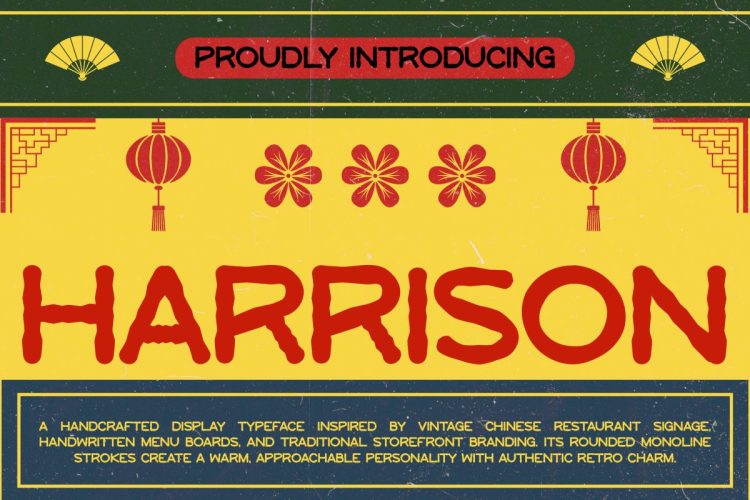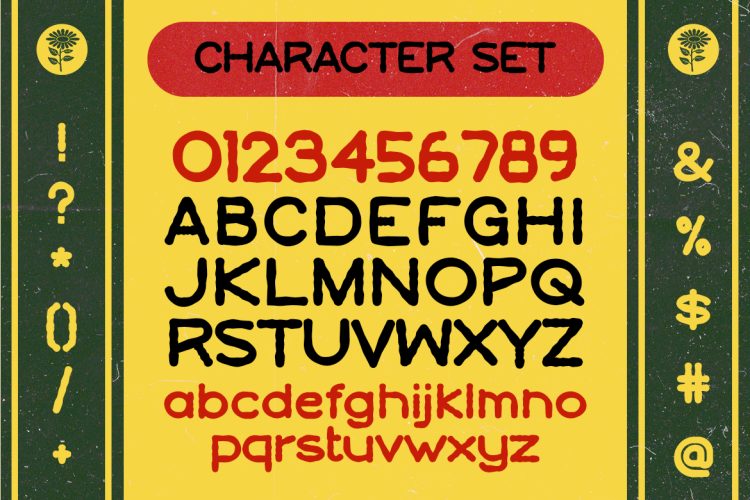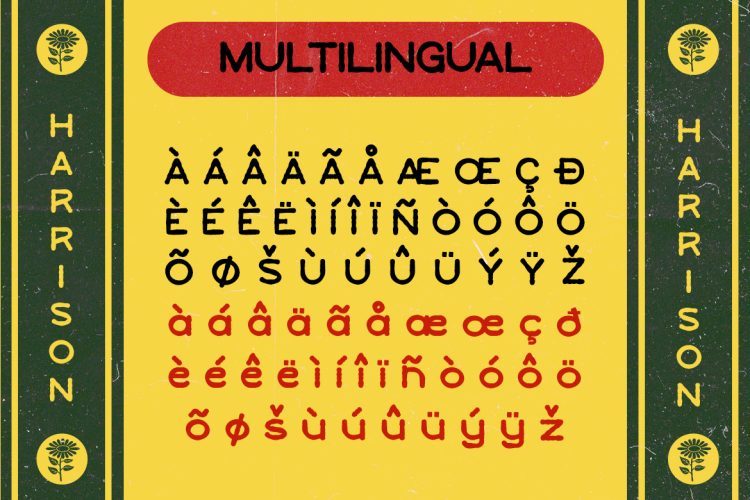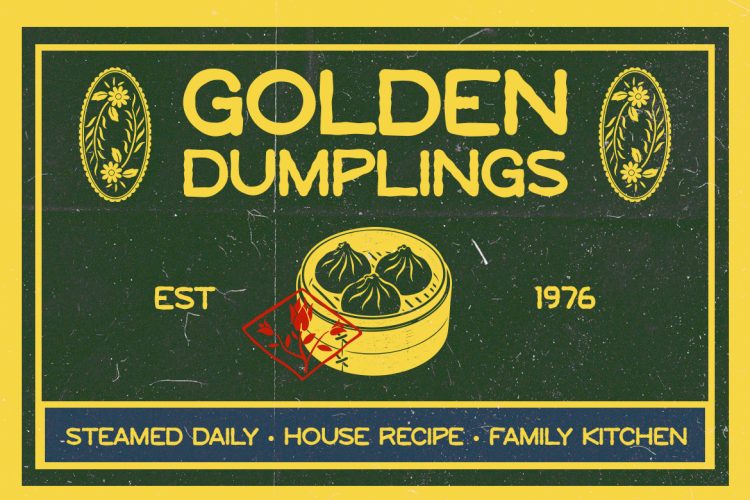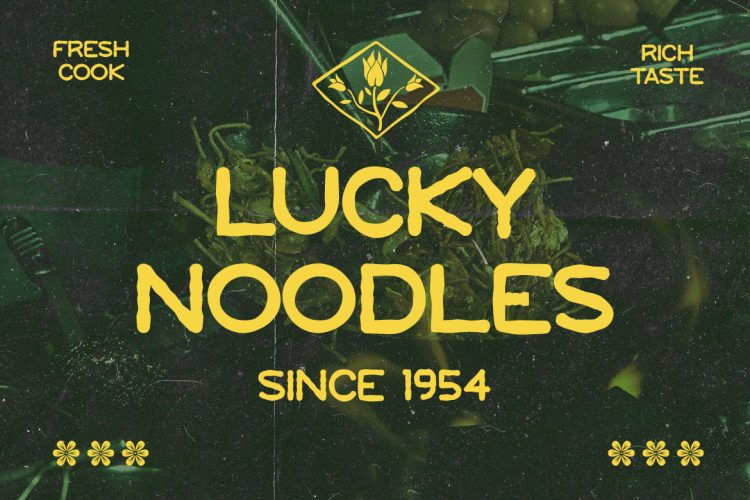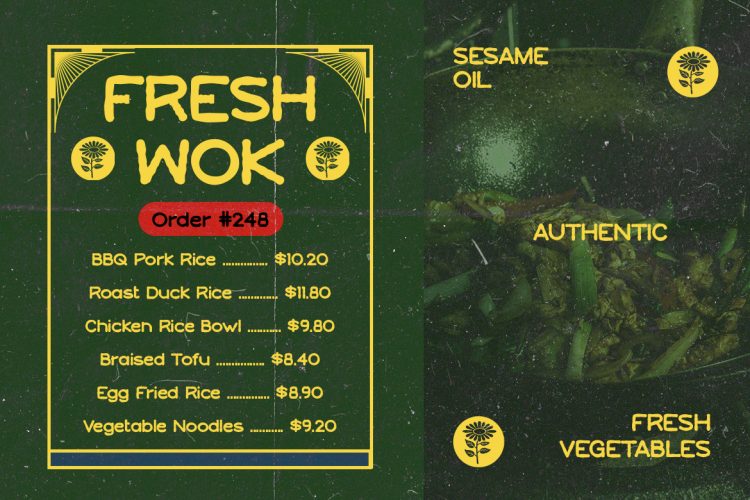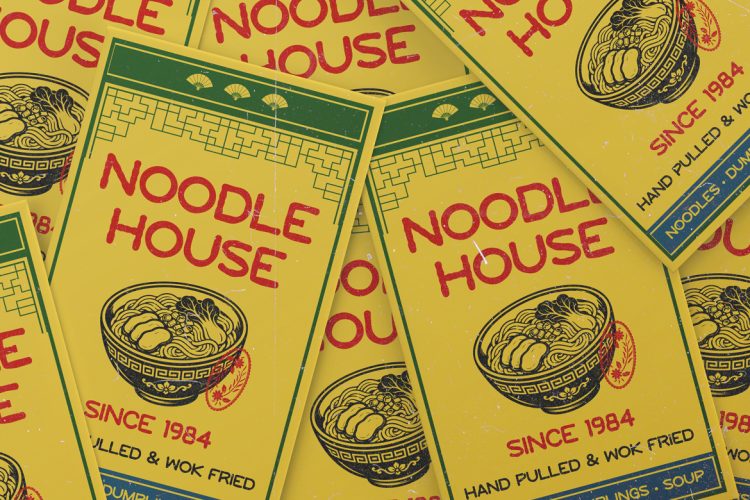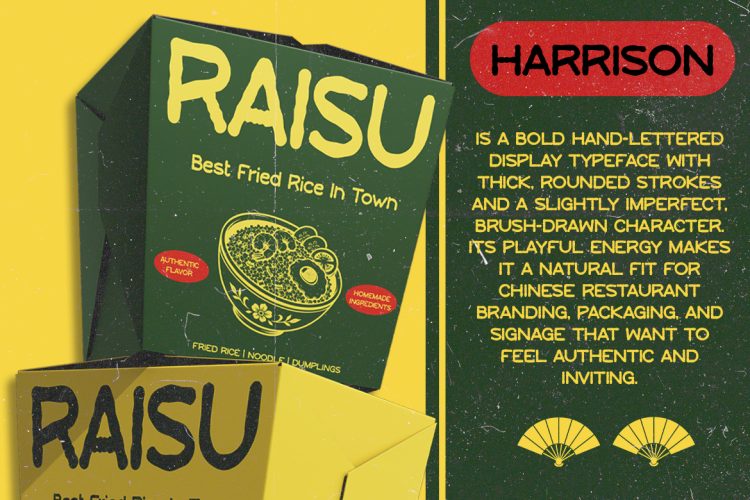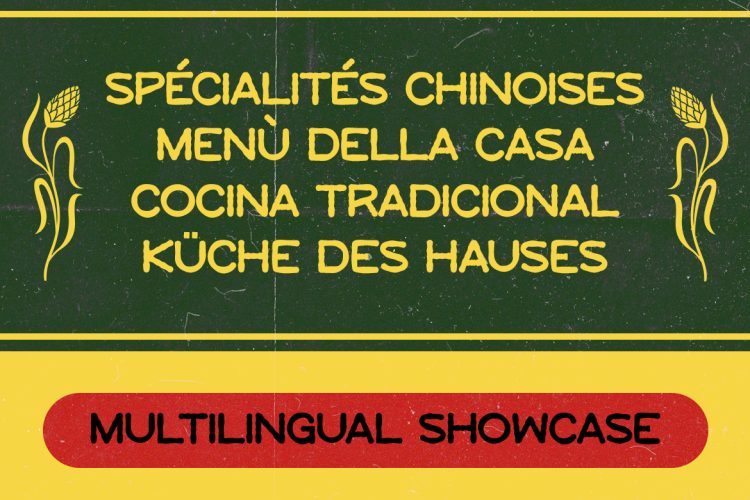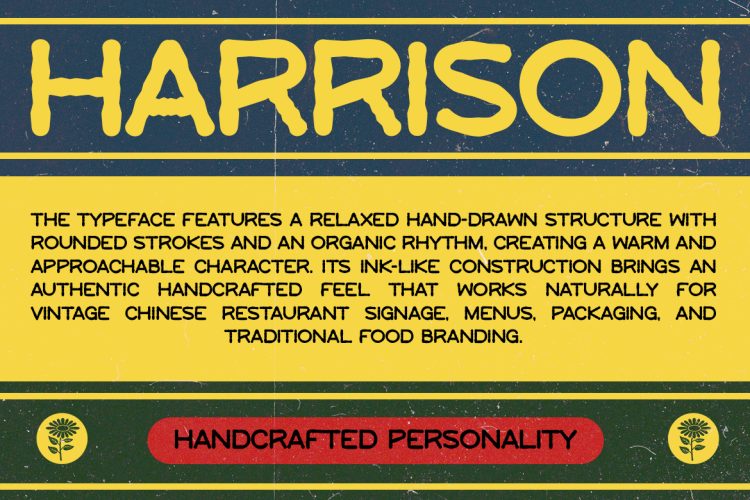
Harrison โ Classic Heritage Meets Bold Retro Flavor
Retro Font Harrison is a handcrafted display font inspired by traditional Asian signboards, vintage food packaging, and classic street-market typography. Not only does it combine bold geometric letterforms with subtle handcrafted details, but it also creates an authentic retro personality that feels warm, nostalgic, and memorable. Moreover, its balanced structure delivers strong readability while preserving a distinctive vintage character. In addition, the charming imperfections add handcrafted appeal that makes every headline feel genuine. Furthermore, Harrison instantly enhances packaging, menus, and branding with a timeless cultural aesthetic. As a result, every design feels more premium, inviting, and full of personality. Meanwhile, its versatile style blends beautifully with both retro and modern layouts. Additionally, with support for 67 languages, Harrison helps brands connect confidently with audiences around the world. Therefore, it is an excellent choice for projects that celebrate tradition, craftsmanship, and authentic visual storytelling.
Retro Font Harrison Perfect For
Harrison is designed for brands that want to showcase heritage with a modern touch. Whether you’re creating restaurant logos, noodle packaging, tea labels, cafรฉ branding, street food menus, spice products, organic food packaging, cultural festivals, or editorial designs, this font adds instant character. Likewise, its vintage-inspired structure strengthens brand recognition. Furthermore, its bold display style keeps titles highly visible across every medium. Consequently, your designs become more memorable and visually engaging. At the same time, Harrison performs beautifully in packaging, signage, social media, and print materials.
Who Can Use It?
- Asian Restaurant & Cafรฉ Owners
- Food & Beverage Brands
- Tea & Herbal Product Companies
- Organic Food Businesses
- Packaging Designers
- Branding Agencies
- Graphic Designers
- Festival & Event Organizers
- Creative Studios
Give Your Brand a Rich Vintage Identity
If you want typography that feels authentic, timeless, and full of heritage, Harrison is the perfect addition to your collection. Therefore, bring this retro-inspired font into your next project. Not only will it strengthen your brand identity, but it will also create a memorable visual experience that customers instantly recognize. Ultimately, Retro Font Harrison transforms ordinary designs into classic branding with lasting appeal.